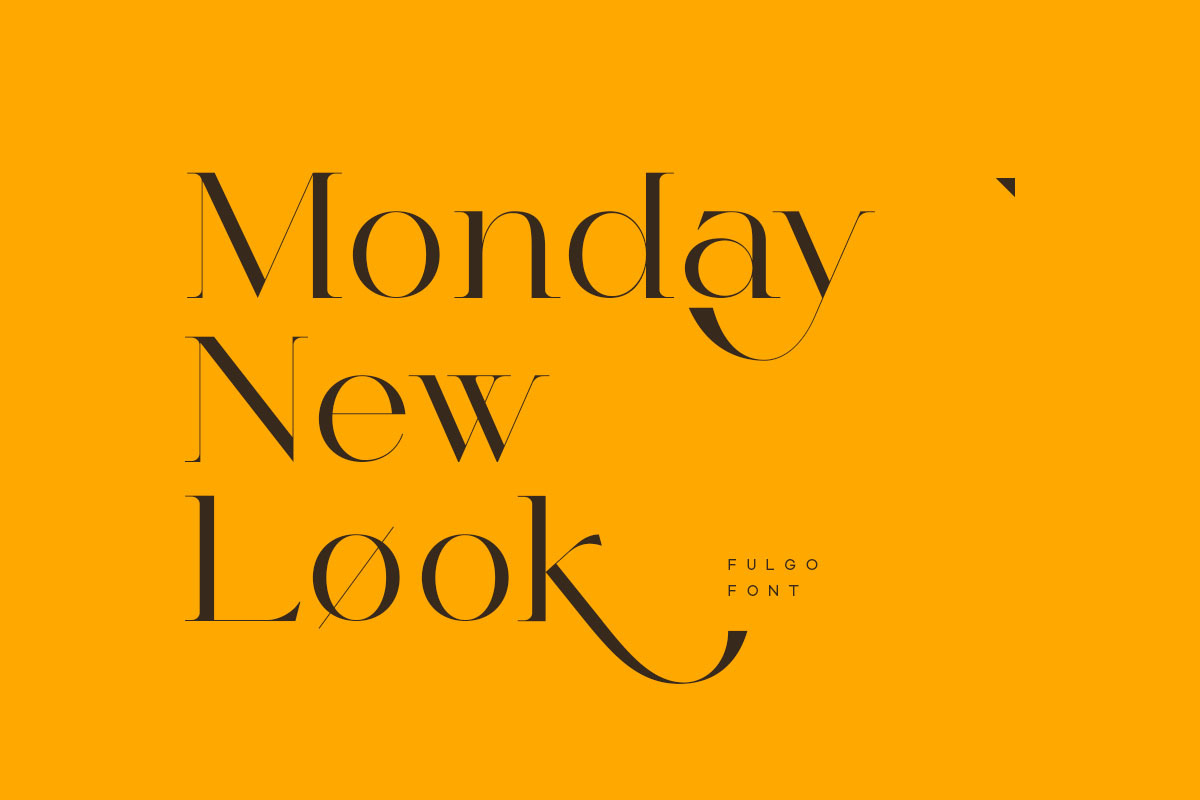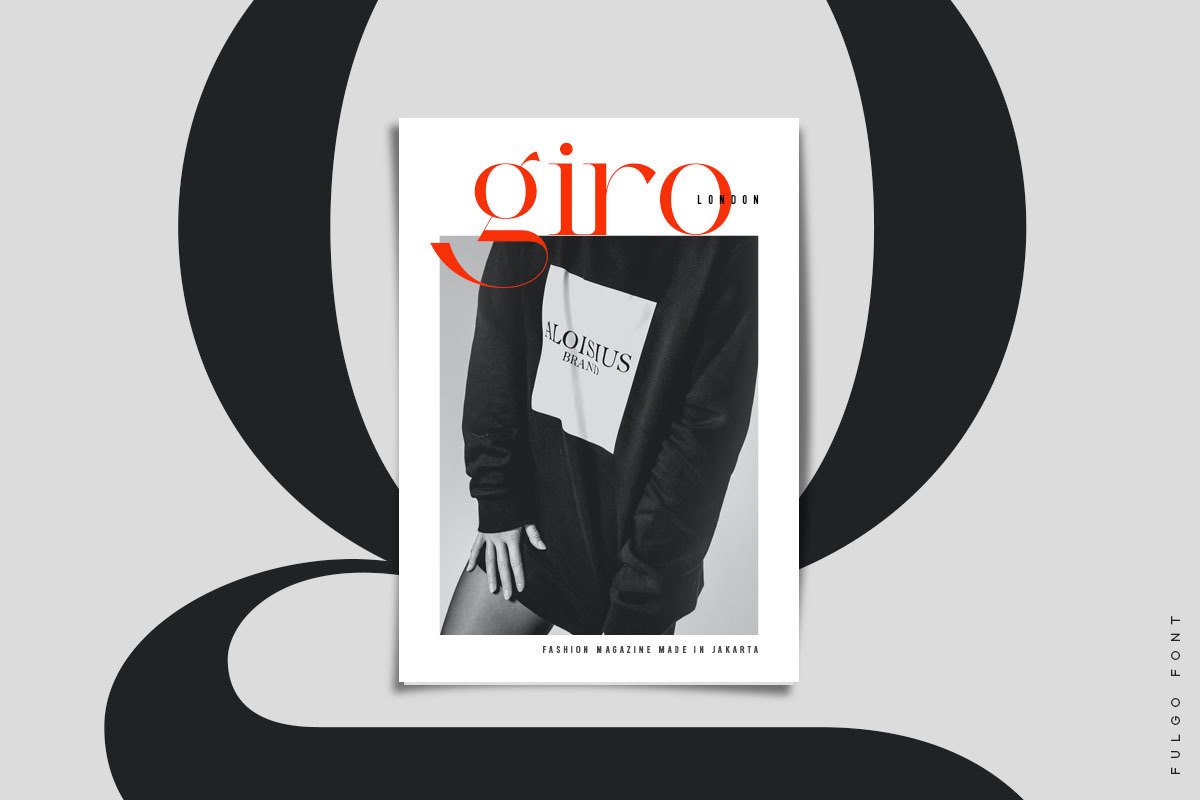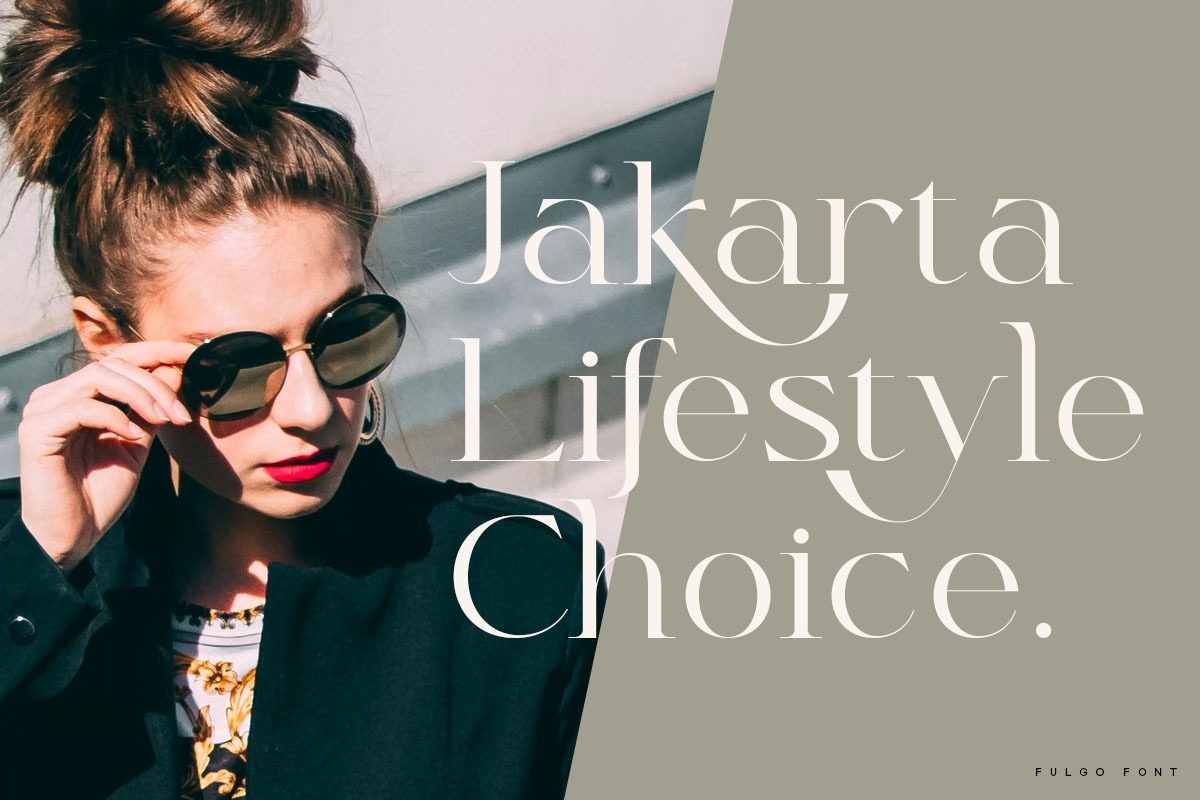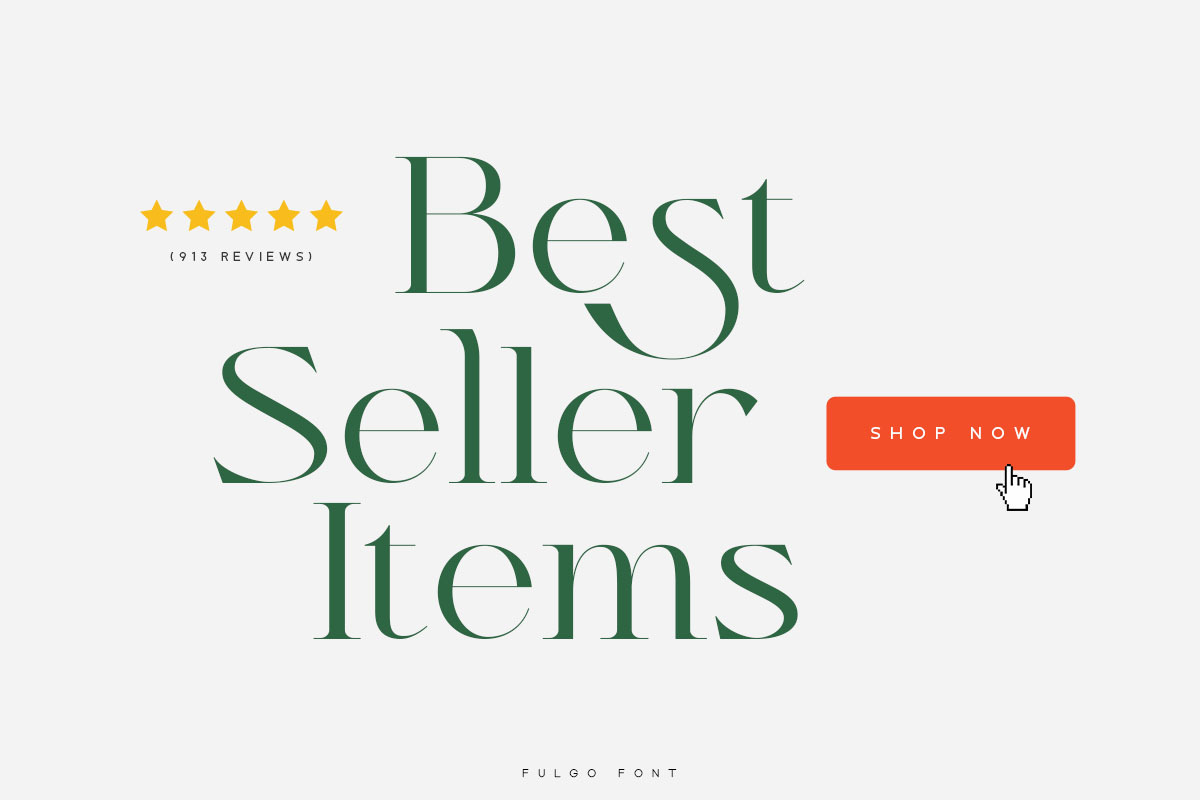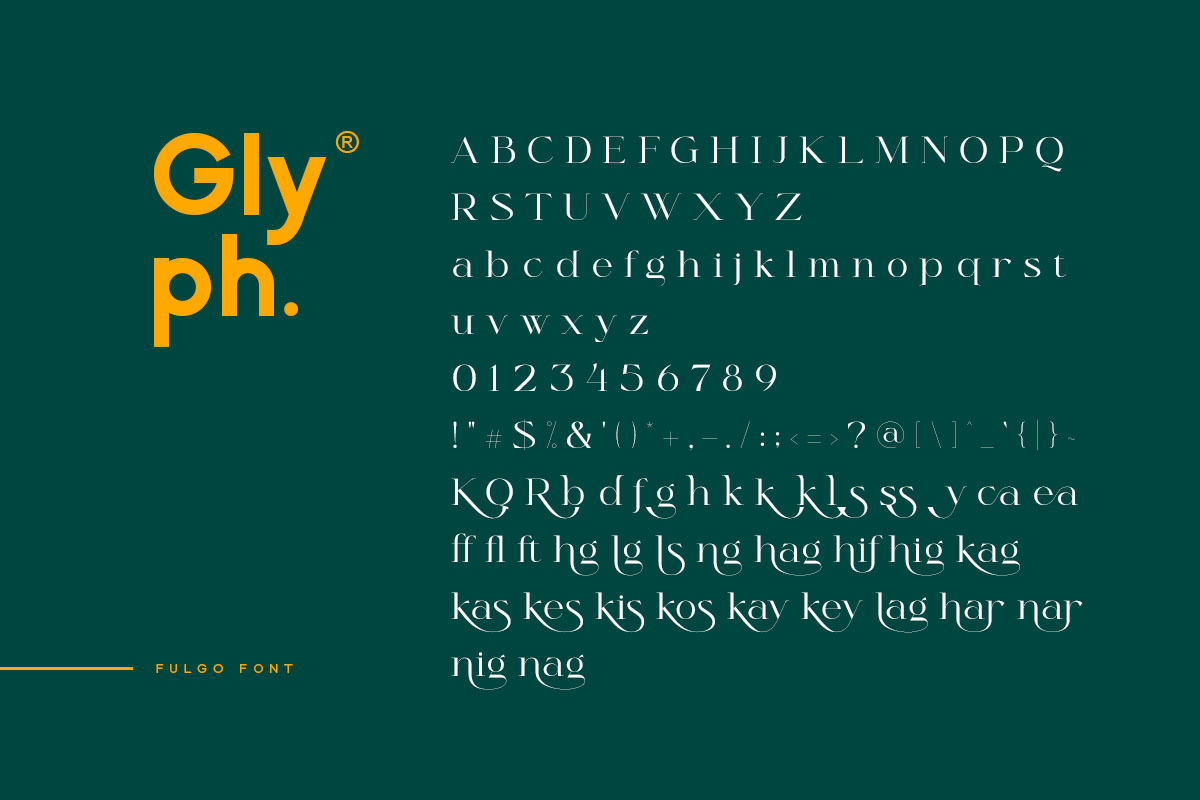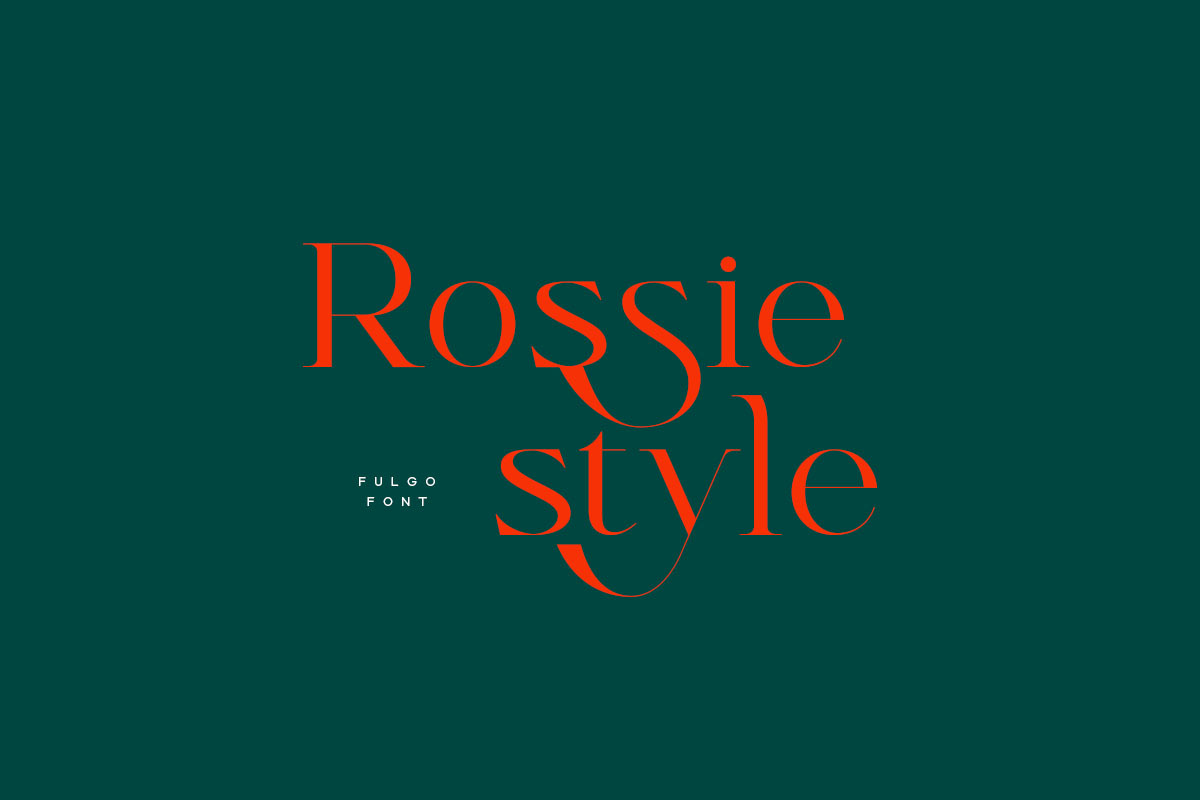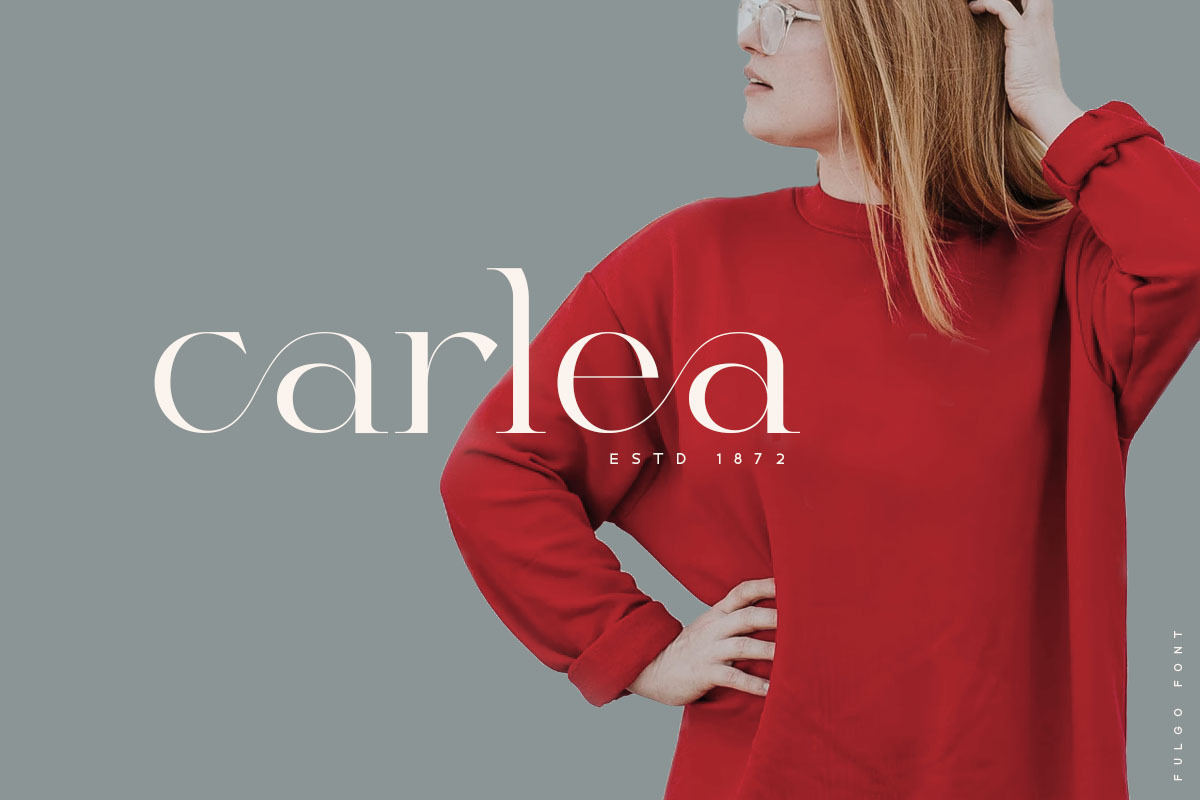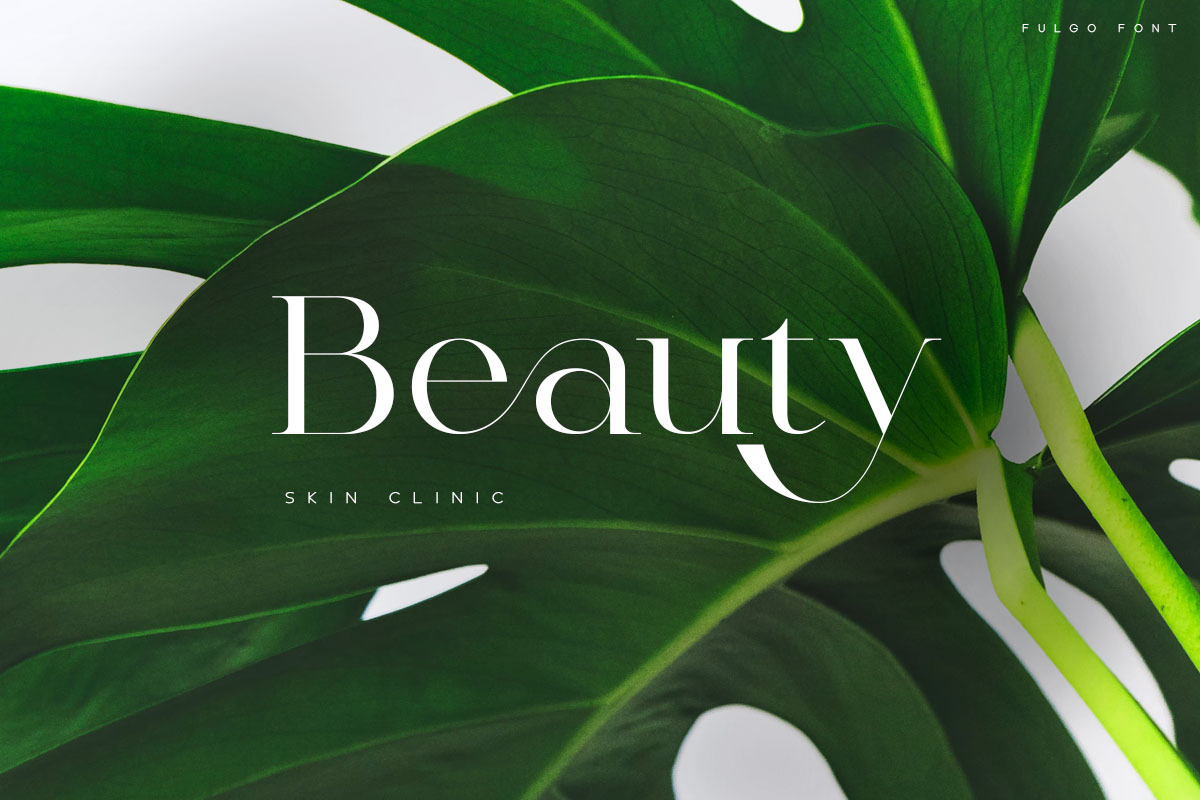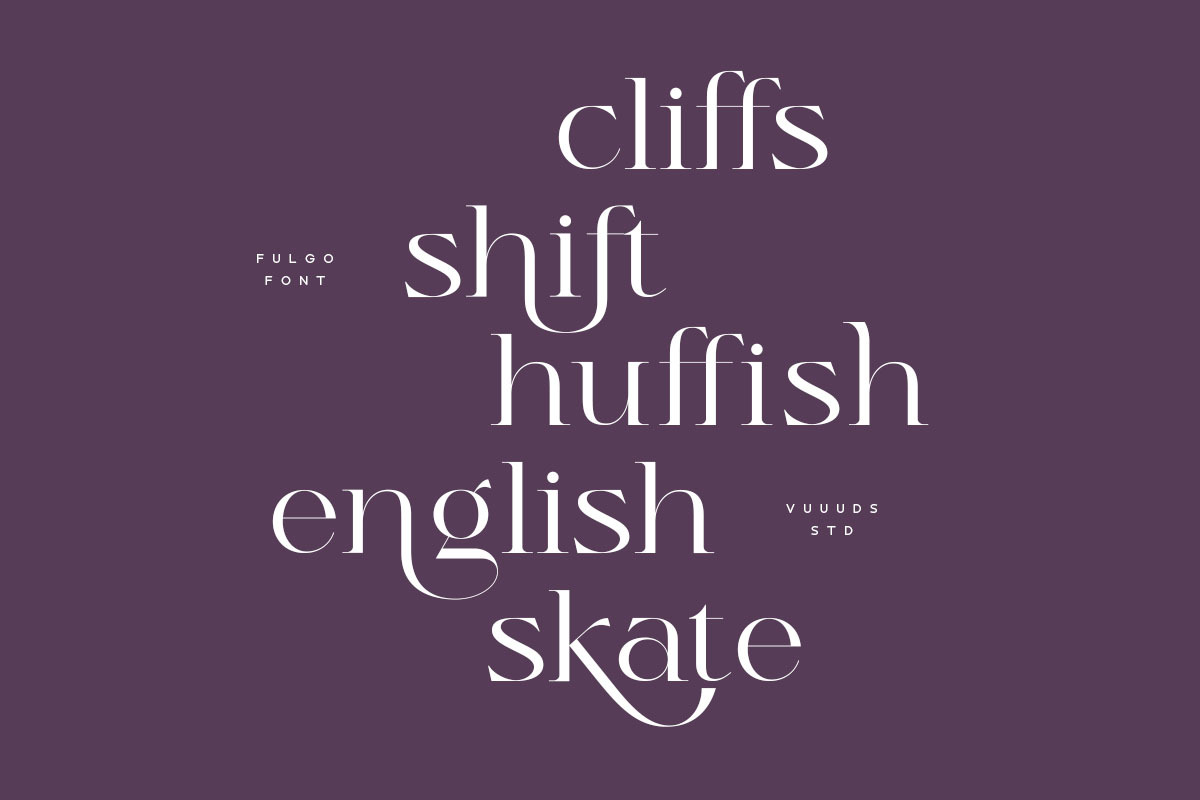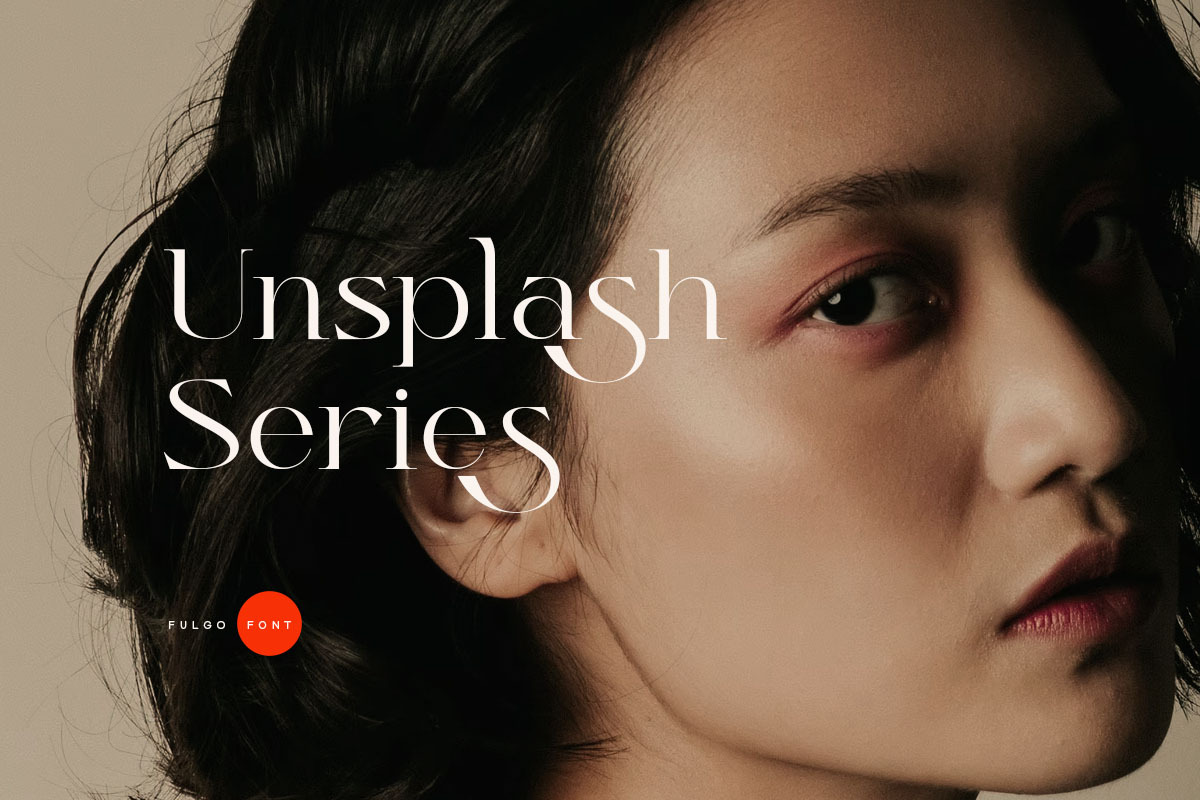
Fulgo Font
Introducing Fulgo Font!
Fulgo is modern serif font, every single letters have been carefully crafted.
Foreign languages support: ÀÁÂÃÄÅÆÇÈÉÊËÌÍÎÏÐÑÒÓÔÕÖØÙÚÛÜÝàáâãäåæçèéêëìíîïðñòóôõöøùúûüýÿ